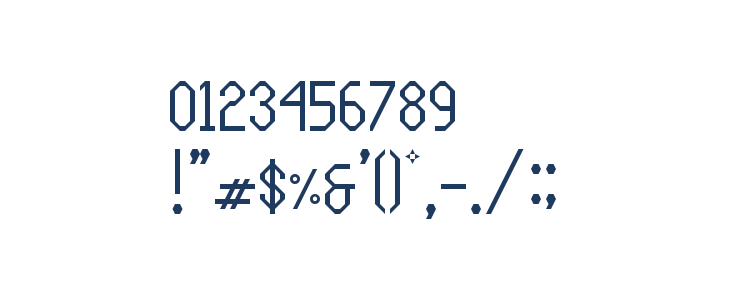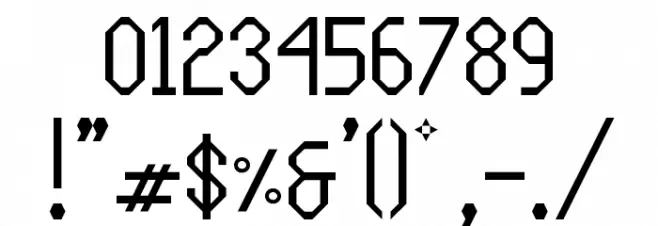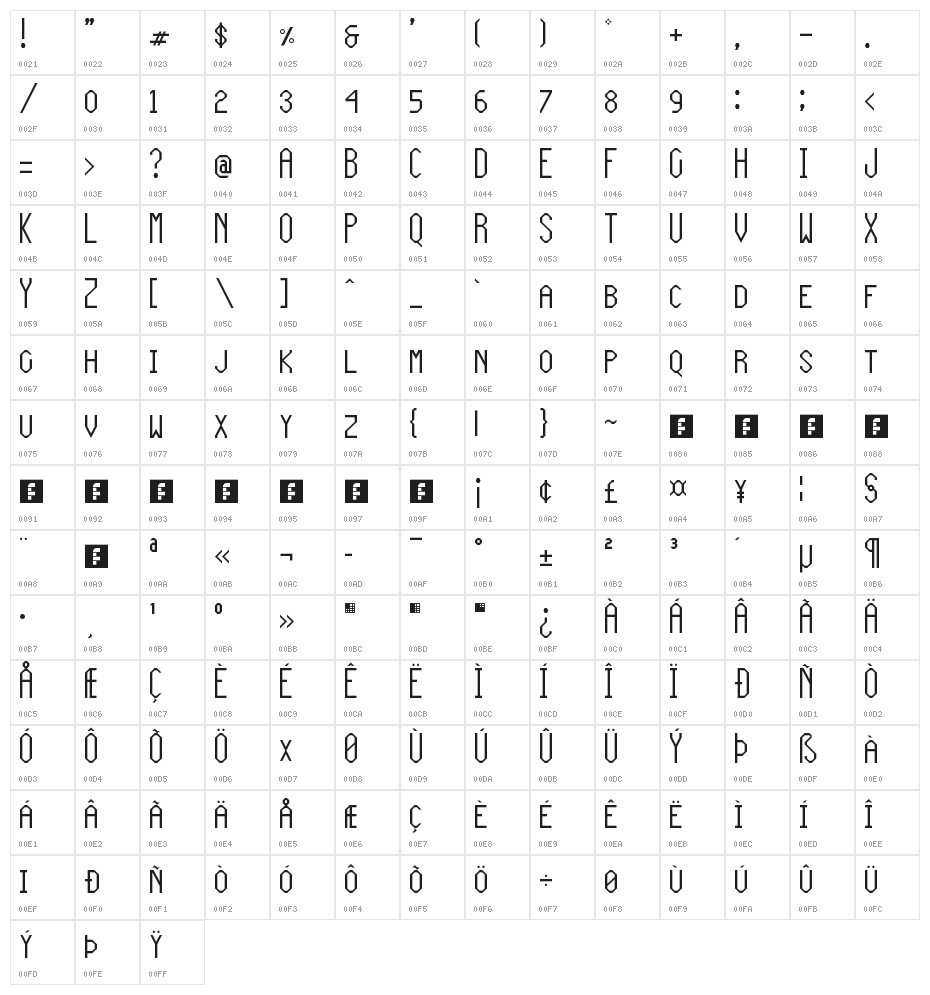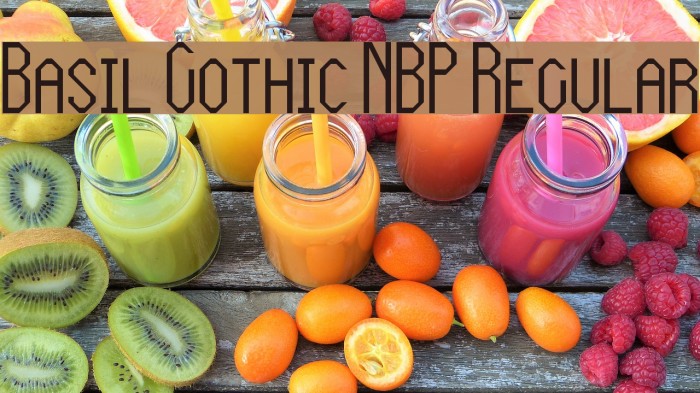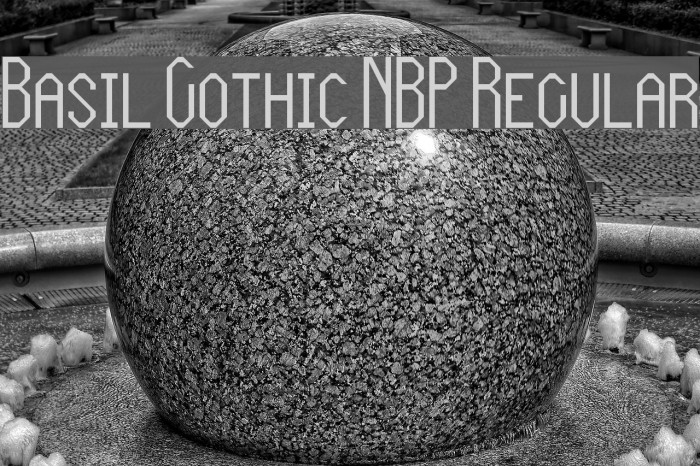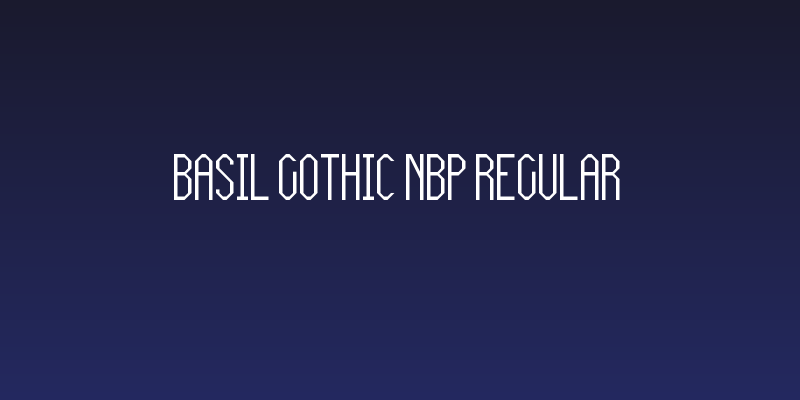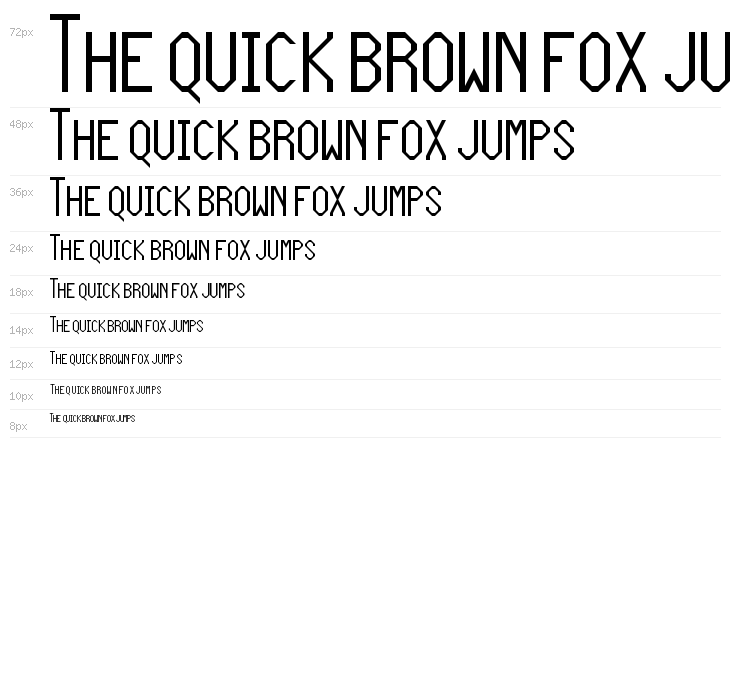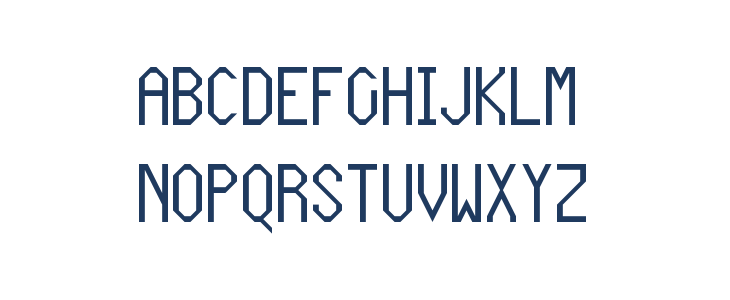
Basil Gothic NBP Regular Font
Basil Gothic NBP Regular Description
This font features a geometric and angular design, characterized by its sharp edges and clean lines. The uppercase and lowercase letters maintain a consistent height, contributing to a uniform appearance. The numerals and special characters are designed with the same angular style, ensuring a cohesive look across all characters. The font's modern and minimalist aesthetic makes it suitable for contemporary design projects. Its unique style is eye-catching and can be used to create a strong visual impact.
| Proposed Projects | Ideal for branding, posters, headlines, and digital media where a modern and bold statement is needed. |